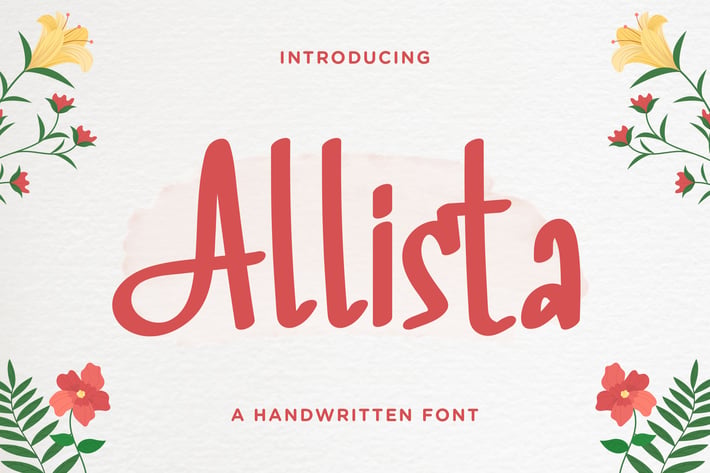
Allista – Fancy Handwritten Font
Allista is a fancy handwritten font, carefully handcrafted to become a true favorite.
This font will look outstanding in any context, whether it’s being used on busy backgrounds or as a standalone headline!
– Lowercase
– Ligature
– Alternate
– Multilingual Support